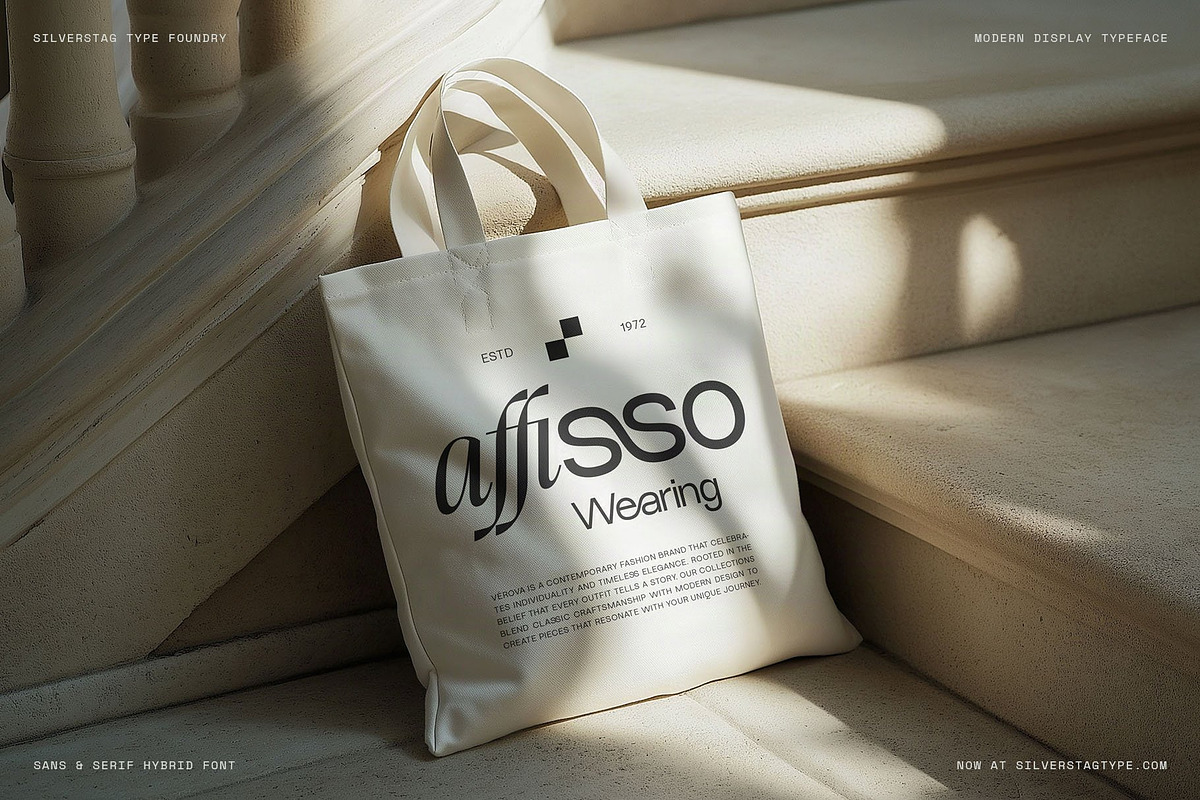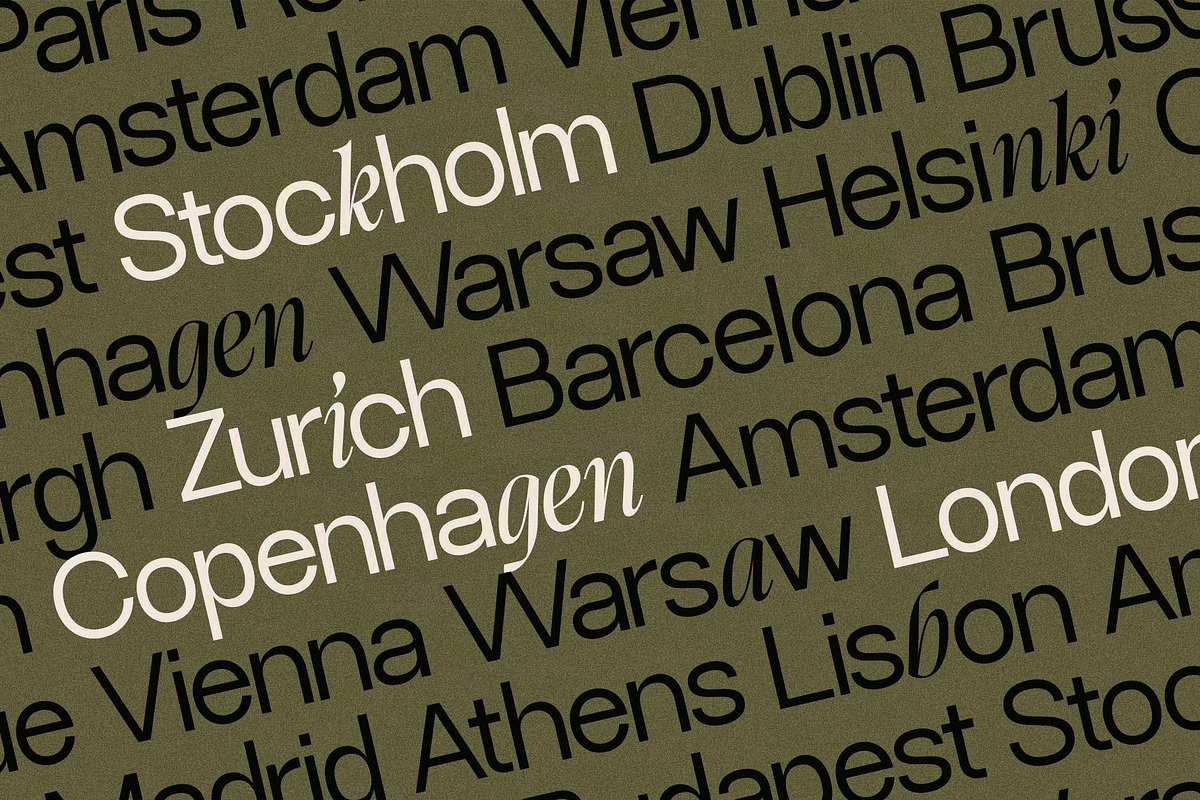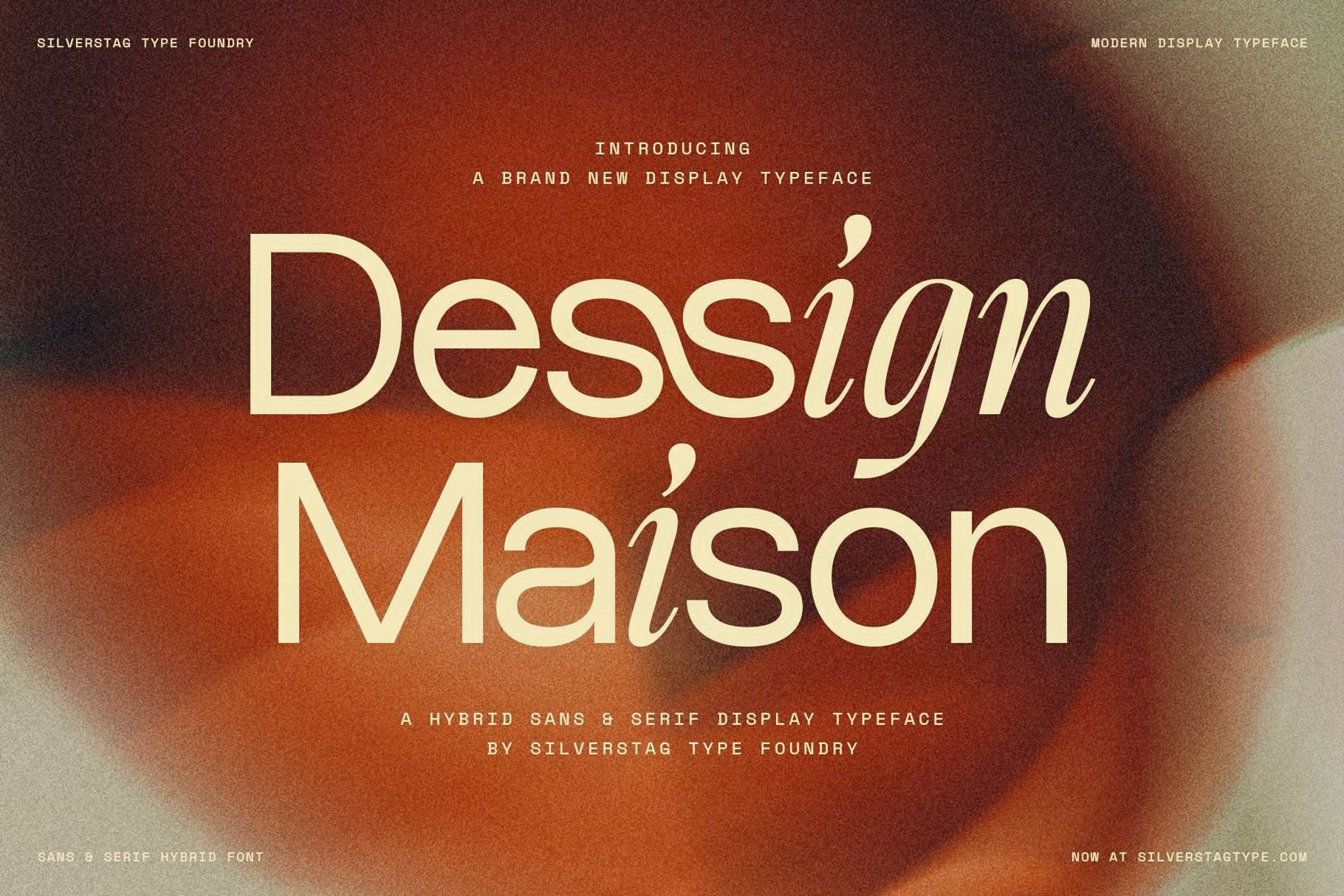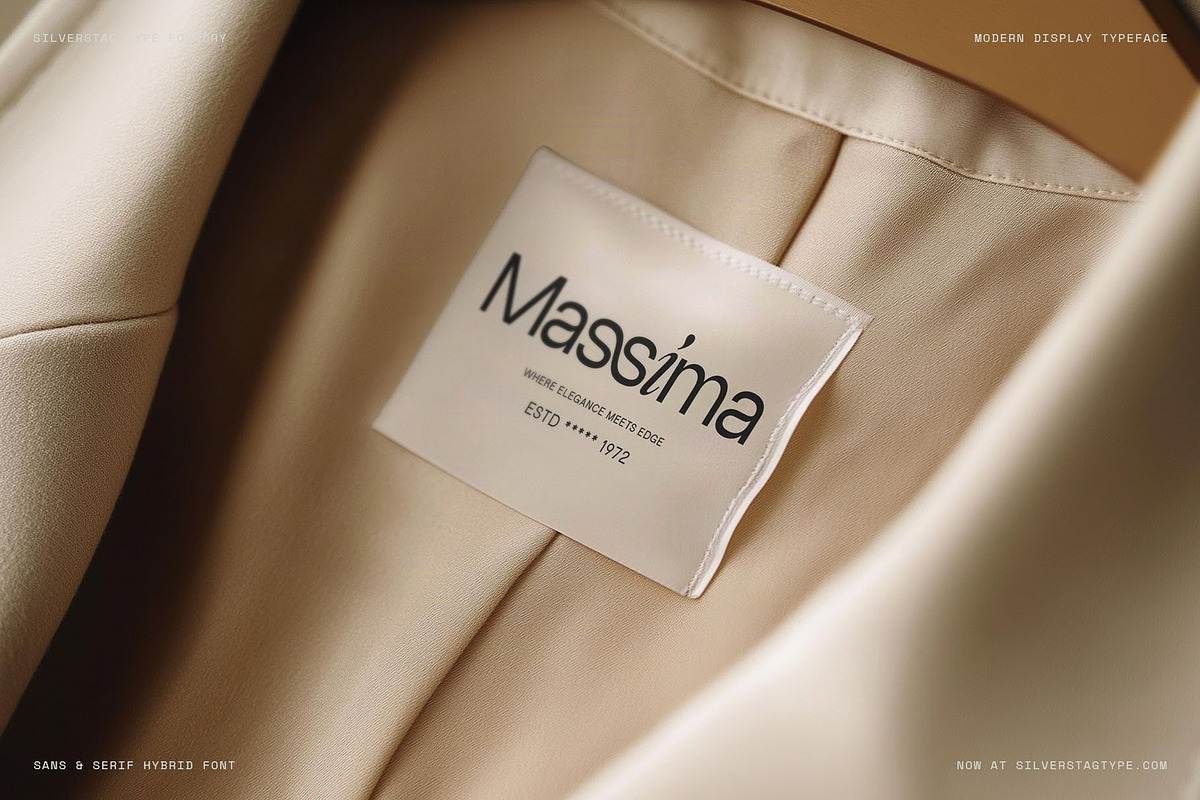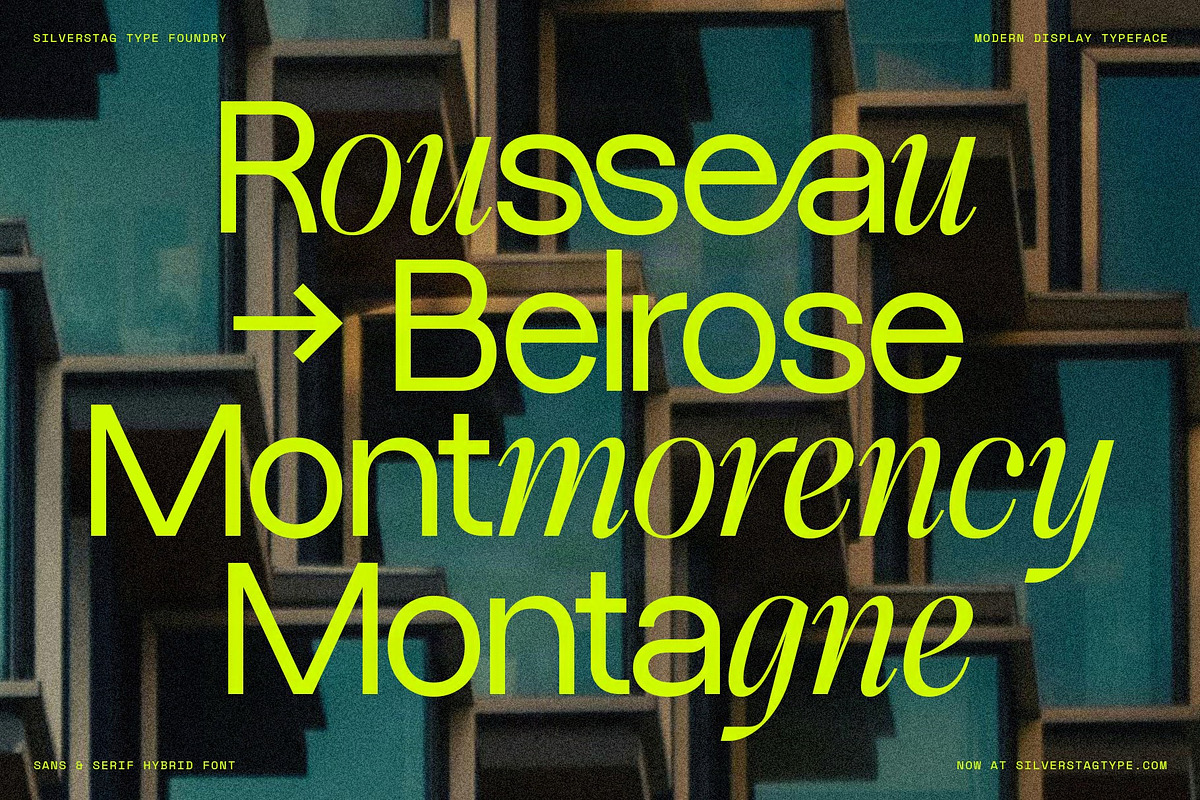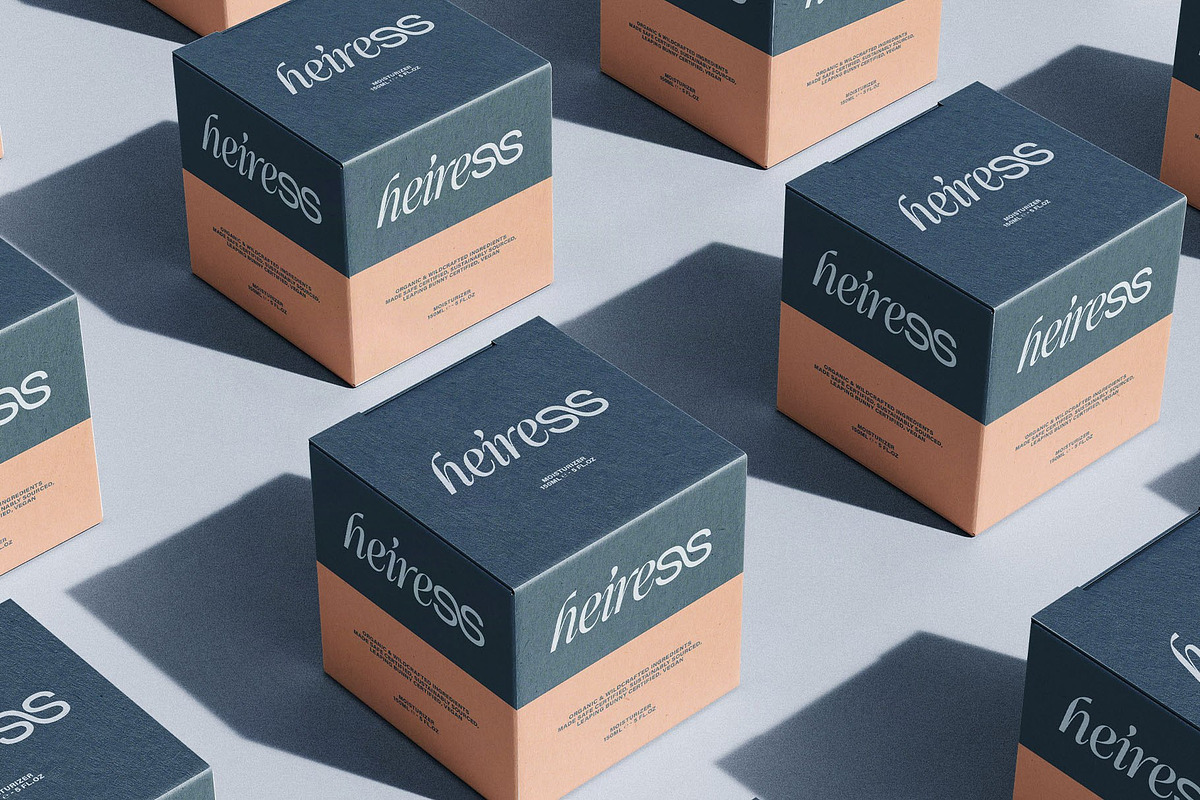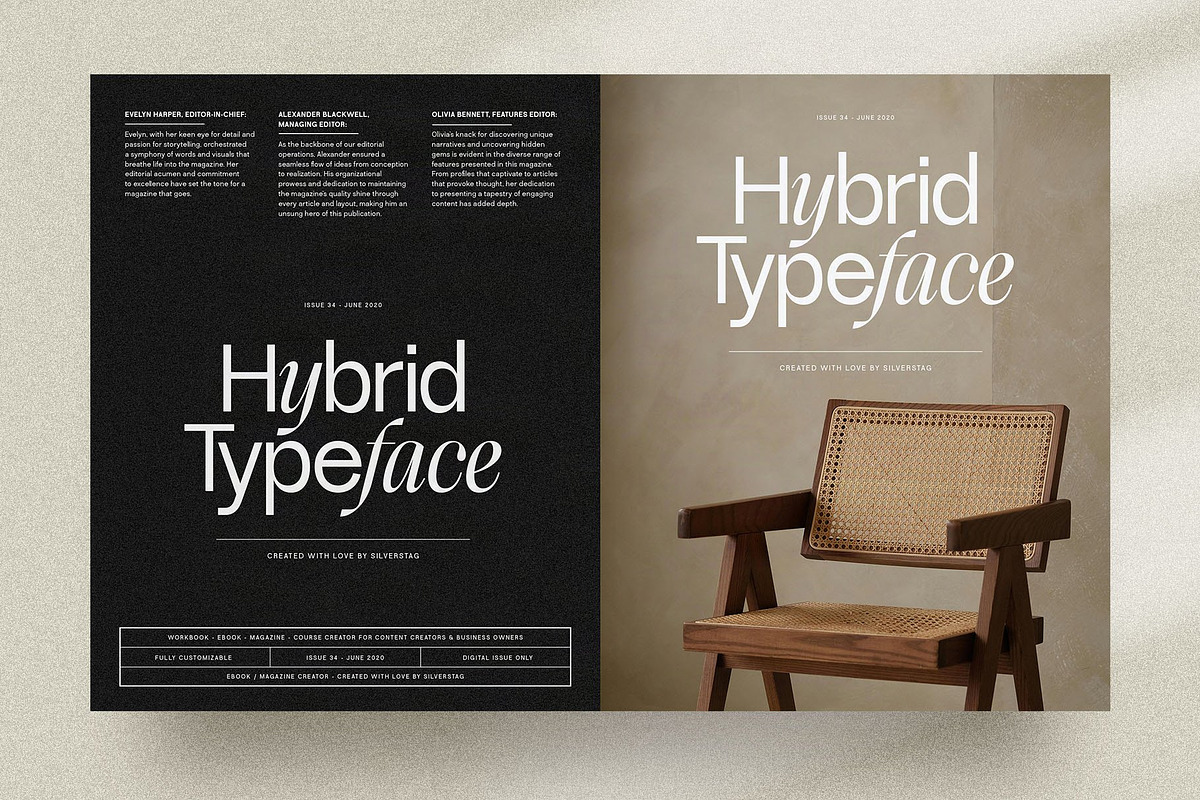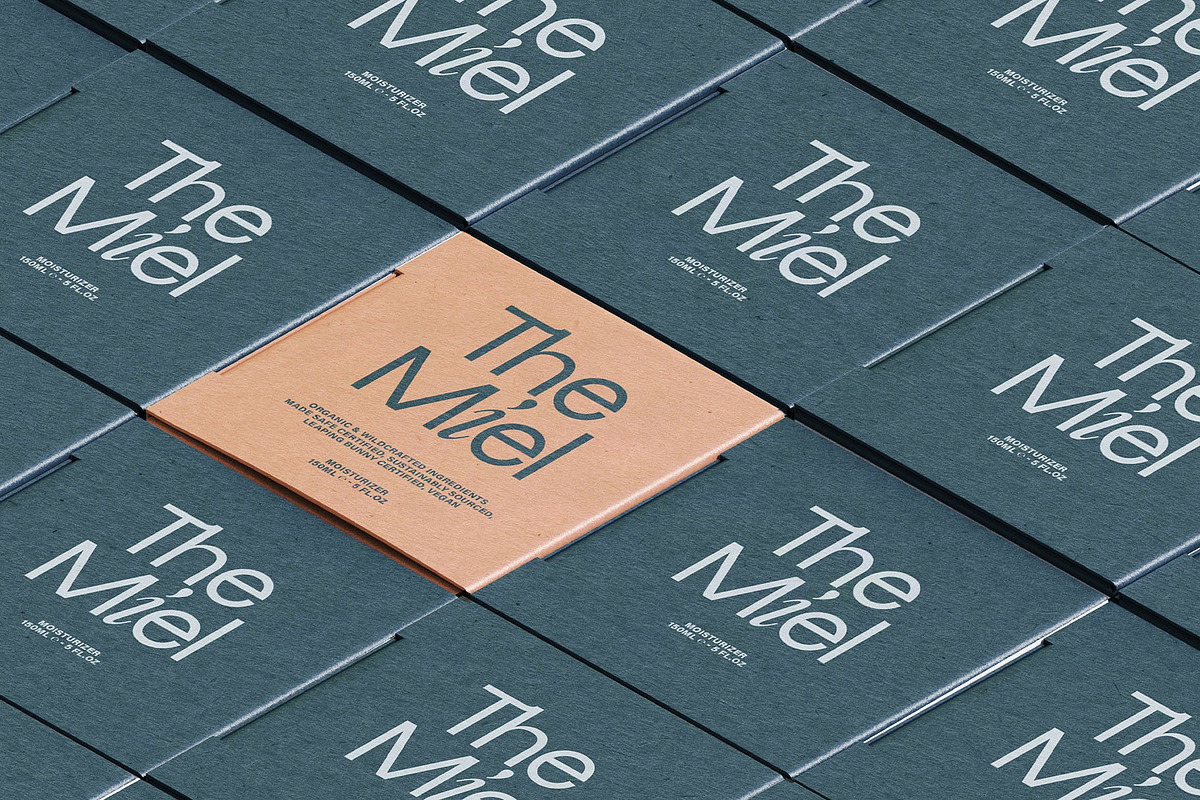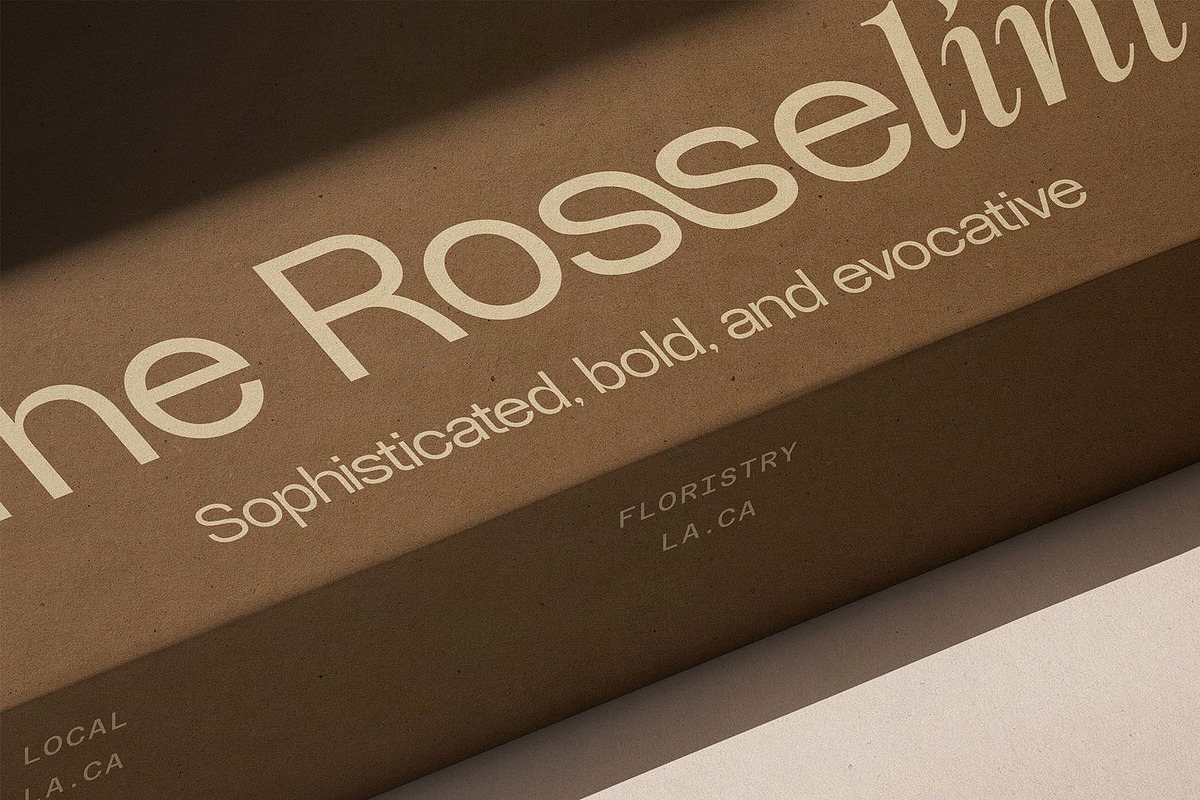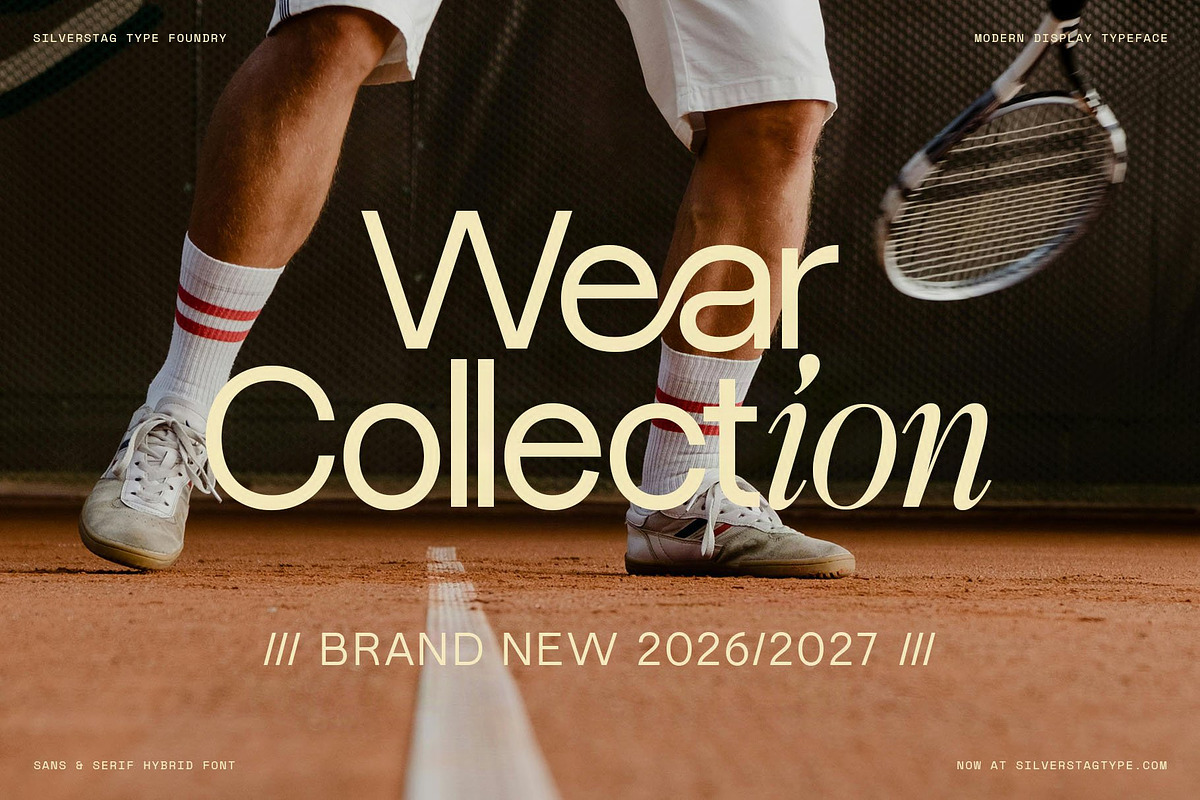
Dessign Maison - Hybrid Display Font
One file. Two personalities. Zero compromise.
SLTF Dessign Maison is a hybrid display typeface where geometric sans letterforms and calligraphic strokes coexist within the same font. Not two fonts. Not a paired family. One design where the i carries a teardrop, the f crosses like a calligraphic hand, and the surrounding letters stay clean and geometric — and the whole thing holds together as one cohesive system.
The hybrid effect is built into the letterforms themselves. Set a single word and it already does two things at once. That tension — modern and expressive, structured and fluid — is what makes it work across such a wide range of briefs: fashion brand identities, luxury packaging, editorial mastheads, hospitality branding, food and beverage, advertising.
Hybrid letterform system
Geometric sans and calligraphic within single glyphs
OpenType features: stylistic alternates, ligatures